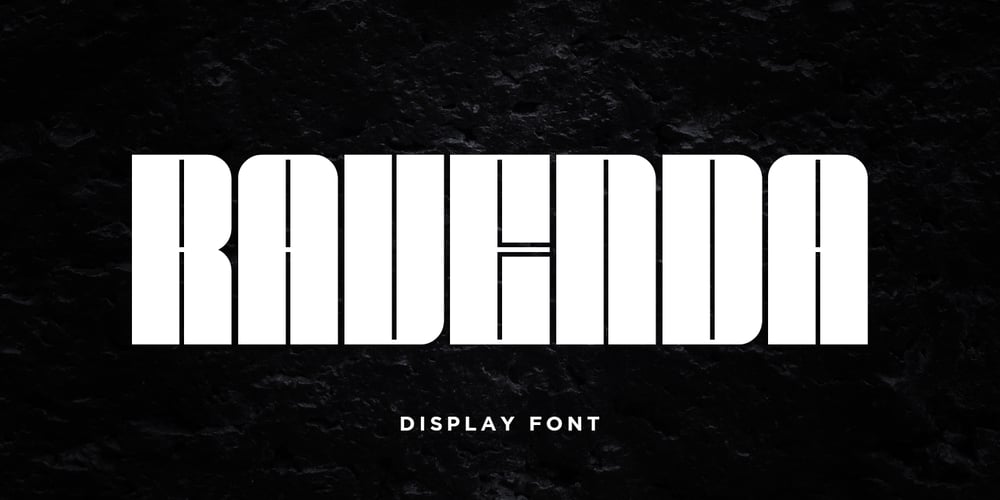
Ravenda Font Family was designed by Yanuar Adi and published by Typehand Studio. Ravenda contains 1 styles and family package options. Ravenda is a modern, all caps display font. Made for giving titles an extra punch, ravenda packs a full set of capitals, number and punctuation. Be it gigs, sport events, logo design or etc. Ravenda was made to bring impact.